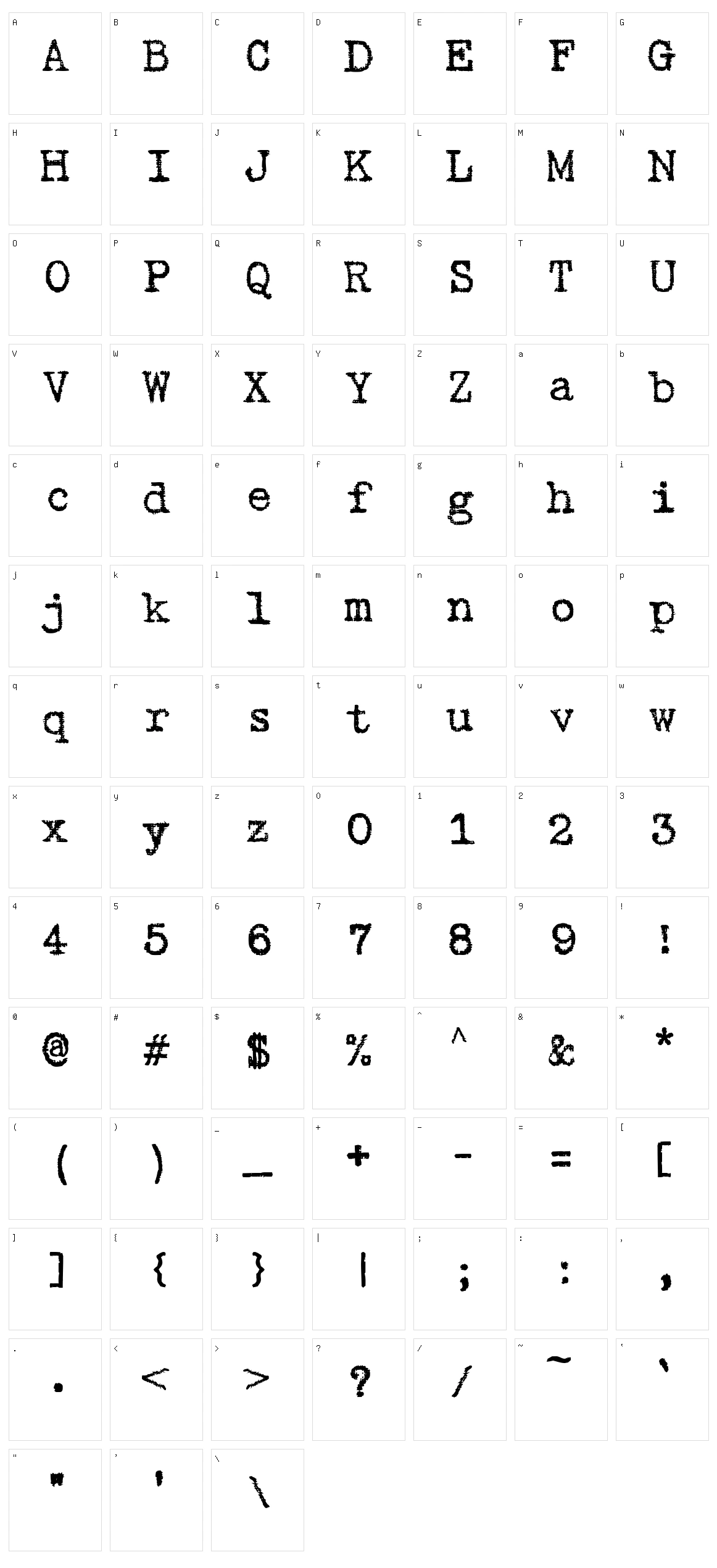
Gabriele Font Series
====================
Gabriele was the name of his granddaughter. In 1957 Max Grundig, German industrialist, bought the two companies Triumph and Adler and merged them into his office machine label 'Triumph Adler'. Thus, 'Gabriele' became the name of a popular series of typewriters in postwar Germany.
We have chosen this name for our series of typewriter fonts in reminiscence of those machines and all the ladies (called Gabriele or not) that used to type on them from the 1950s to the '80s.
Ah, yes, another typewriter font.
Well sort of. We are aware that there are quite a few of them around. But unlike Gabriele, most are not free for commercial use and/or have problems with umlauts and other extended characters. Gabriele has a complete West European charset, the ribbon members even many East European characters. These are monospaced fonts. The characters have all the same width - with the exception of the "ellipsis" character ("...") which is of course three spaces wide. Naturally, these fonts have and need no kerning.
Gabriele Bad is named after the somewhat darker and grungy look. Inside, she's really nice. Looking similar to the other two but not based on Rakowski's work. This is the darkest one of the three. She's not so good at Eastern European languages, but she can type Turkish fluently.